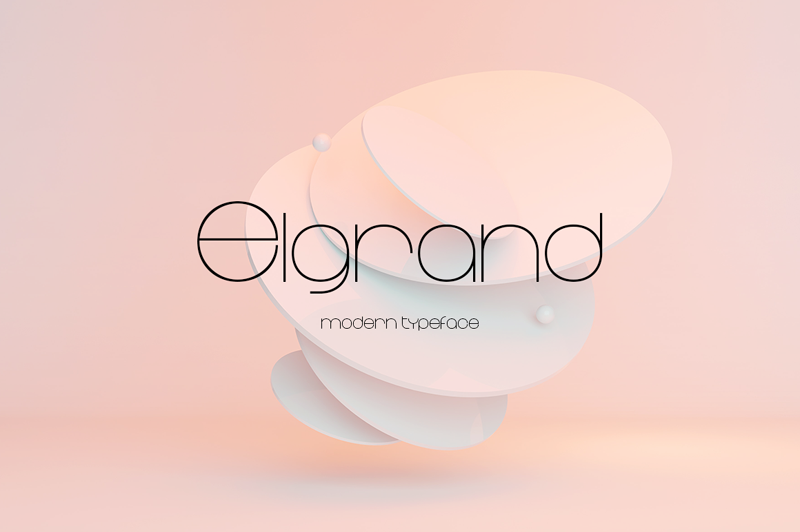
Preview and download Elgrand Font. Created by Oksana Shudegova in Basic Sans serif styles with Free for personal use license.
Font name: | Elgrand |
Author: | Oksana Shudegova |
Elgrand - a new fresh handmade calligraphy font. --- Very suitable for greeting cards, branding materials, business cards, quotes, posters, and more!This font are perfect for wedding postcard. Or you can create perfect and unique design of your logo, blog, stationery, marketing, magazines and more :) OTF TTF WOFF. THANK YOU!!! looking my bundle Super Sale: https://fontbundles.net/allisonsuns/1679222-black-friday-17-handmade-font-bundle#gtmPos=2>mList=15 https://creativemarket.com/ОксанаШудегова/7204963-3-ONLY-NOW-SUMMER-font-bundle-25in1 |